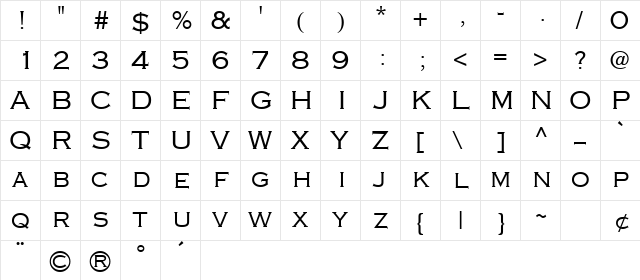
CooperPlanck4 SH
Design Context for CooperPlanck4 Typeface
CooperPlanck4 is a composed and adaptable typeface that performs quietly and consistently across a wide range of design contexts.